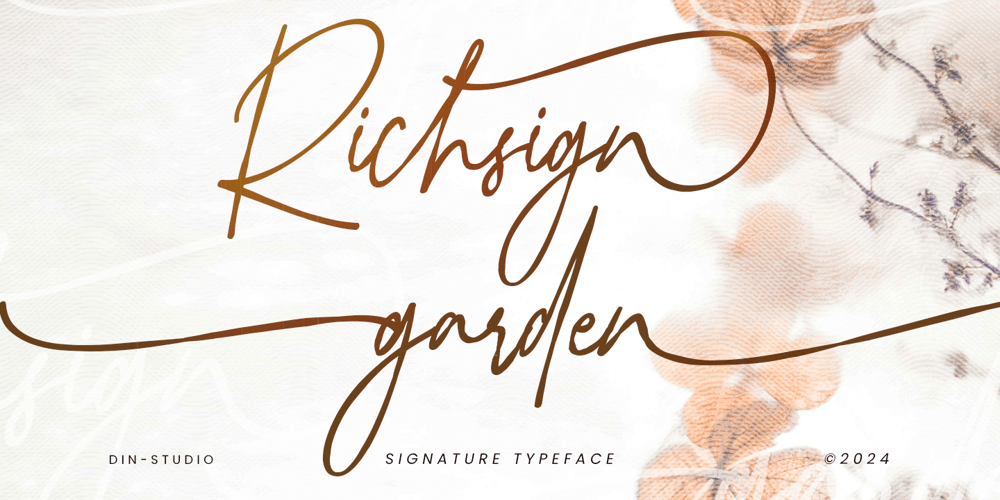
Richsign Garden
Richsign Garden font
Richsign Garden Font Family was designed by Donis Miftahudin and published by Din Studio. Richsign Garden contains 1 styles and family package options. Richsign Style is an elegant script font crafted with a refined signature style. Designed with beautifully connected letters and subtle, low contrast, this font adds a touch of sophistication and smooth flow to any project. Brings effortless grace and a polished look to your designs with Richsign style. In addition, enjoy the features here.Features: Stylistic Sets Ligatures Multilingual Supports PUA Encoded Numerals and Punctuations Richsign Garden fits in headlines, logos, posters, invitation, branding materials, packaging, print media, editorial layouts, and many more designs. Find out more ways to use this font by taking a look at the font preview.Thanks for purchasing our fonts. Hopefully, you have a great time using our font. Feel free to contact us anytime for further information or when you have trouble with the font. Thanks a lot and happy designing.